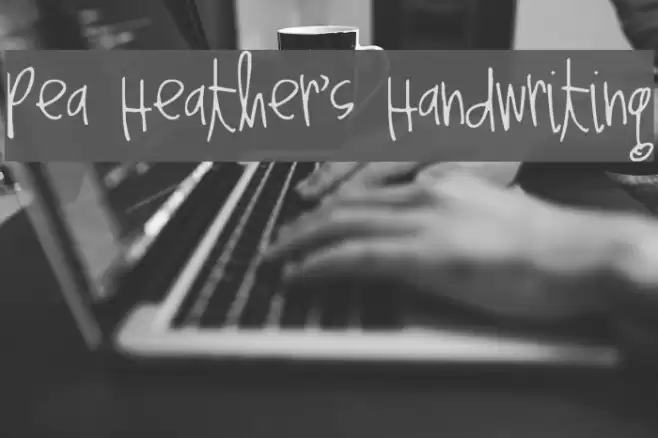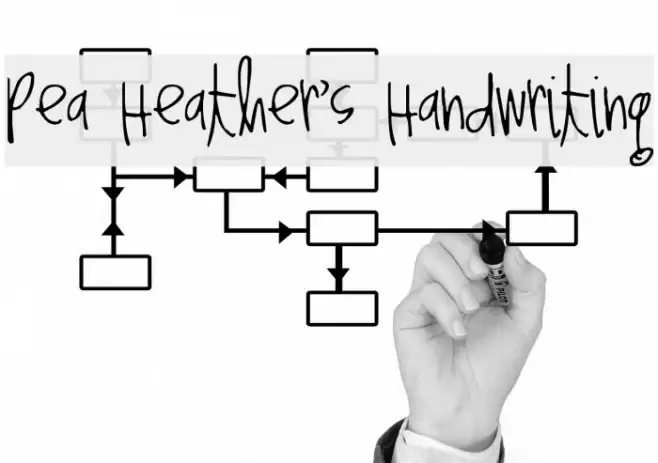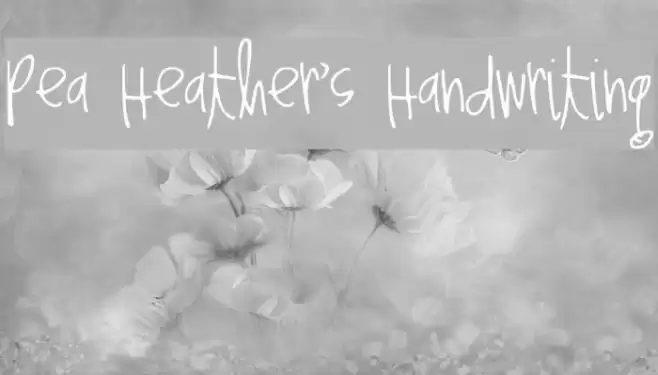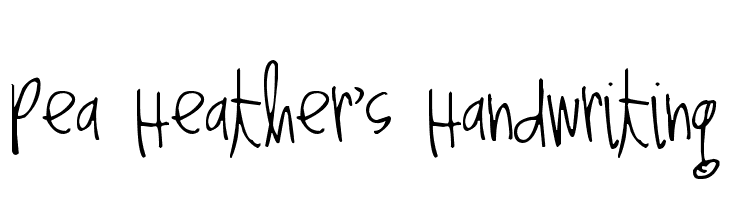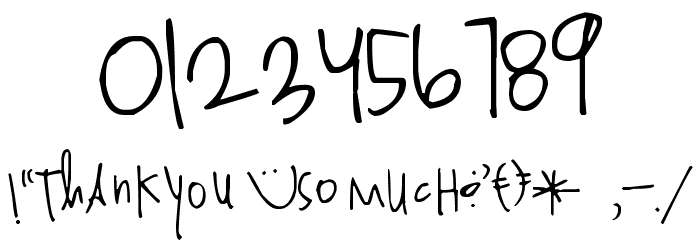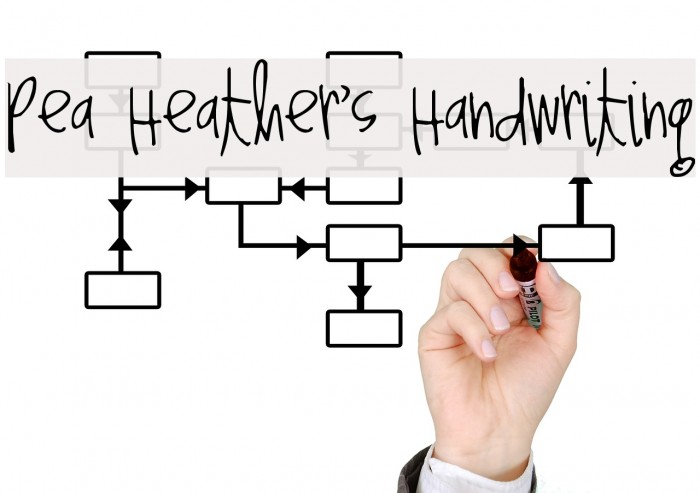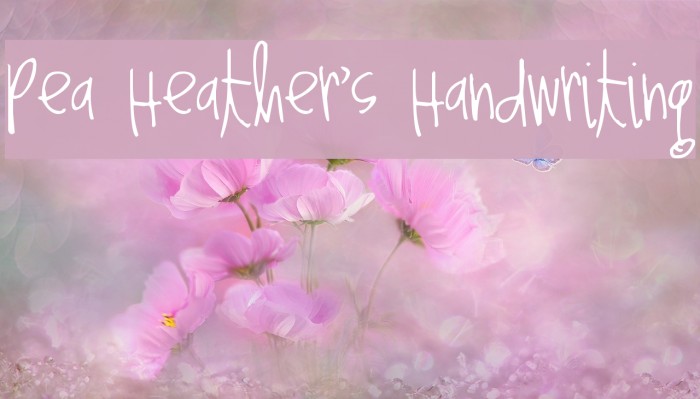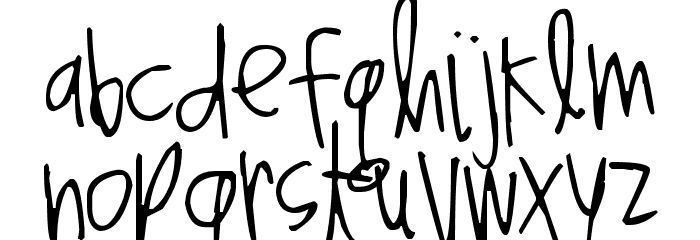
Pea Heather's Handwriting Font
Pea Heather's Handwriting Description
This font exudes a playful and casual handwritten style, characterized by its irregular and organic letterforms. The strokes are uneven, giving it a personal and informal touch, reminiscent of a personal note or a quick jot in a diary. The uppercase letters are bold and slightly taller, while the lowercase letters maintain a consistent flow, adding to the font's charm. Numbers and special characters follow the same whimsical style, making it versatile for various creative projects. The overall appearance is approachable and friendly, ideal for designs that require a human touch.
A playful, casual handwritten font with an informal and personal style from Uncategorized fonts.
- Proposed Projects: Ideal for greeting cards, personal blogs, children's books, and informal invitations.
- Overall Style: Casual, Playful
- Use Case: Headlines, Informal text, Personal notes